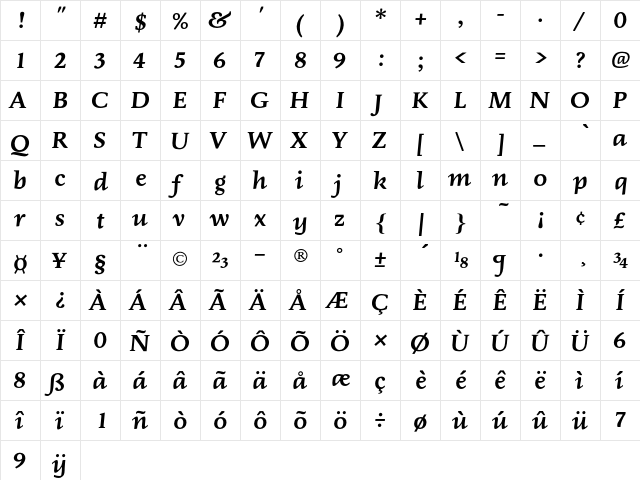
Economist101 DemiItalic
Design Context for Economist101 Typeface
Economist101 is a composed and adaptable typeface that performs quietly and consistently across a wide range of design contexts. The dynamic lean of this cut emphasises speed and emphasis in any layout.
Pro Tip: Try Economist101 for annotation and caption copy alongside an upright companion — the contrast in angle creates a dynamic but ordered typographic system.